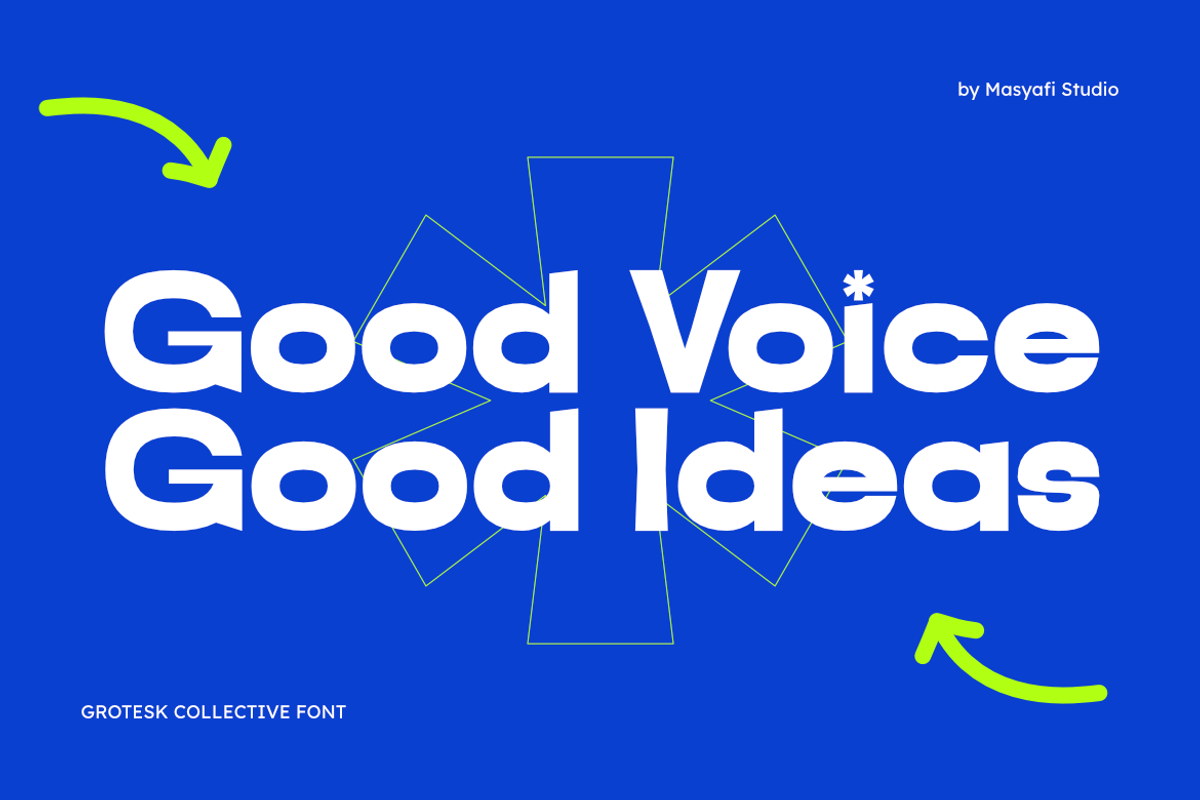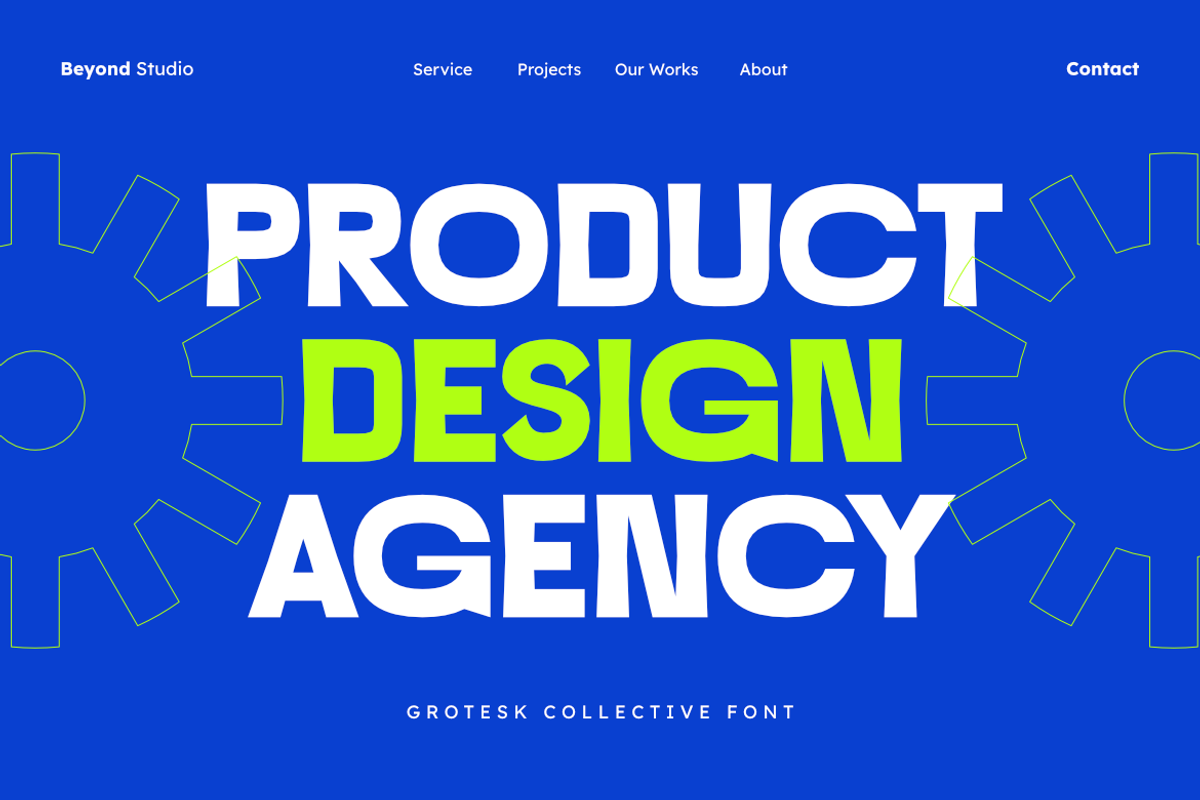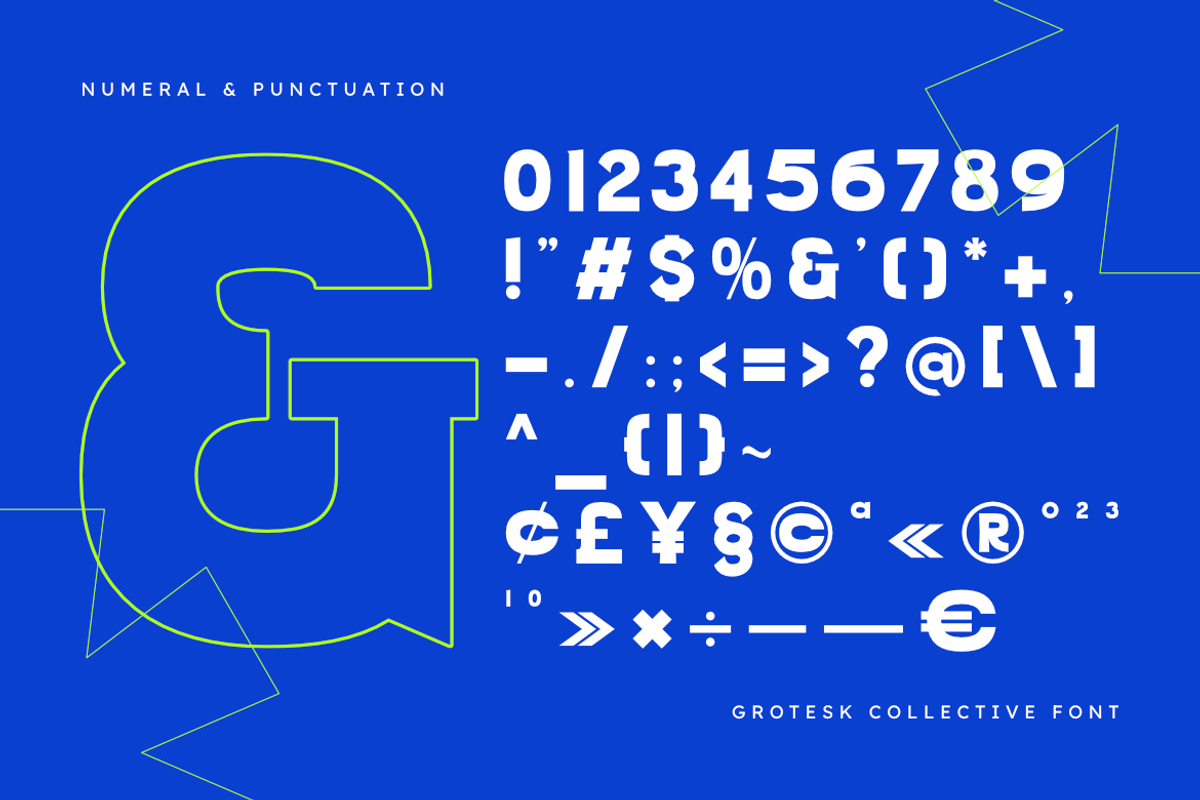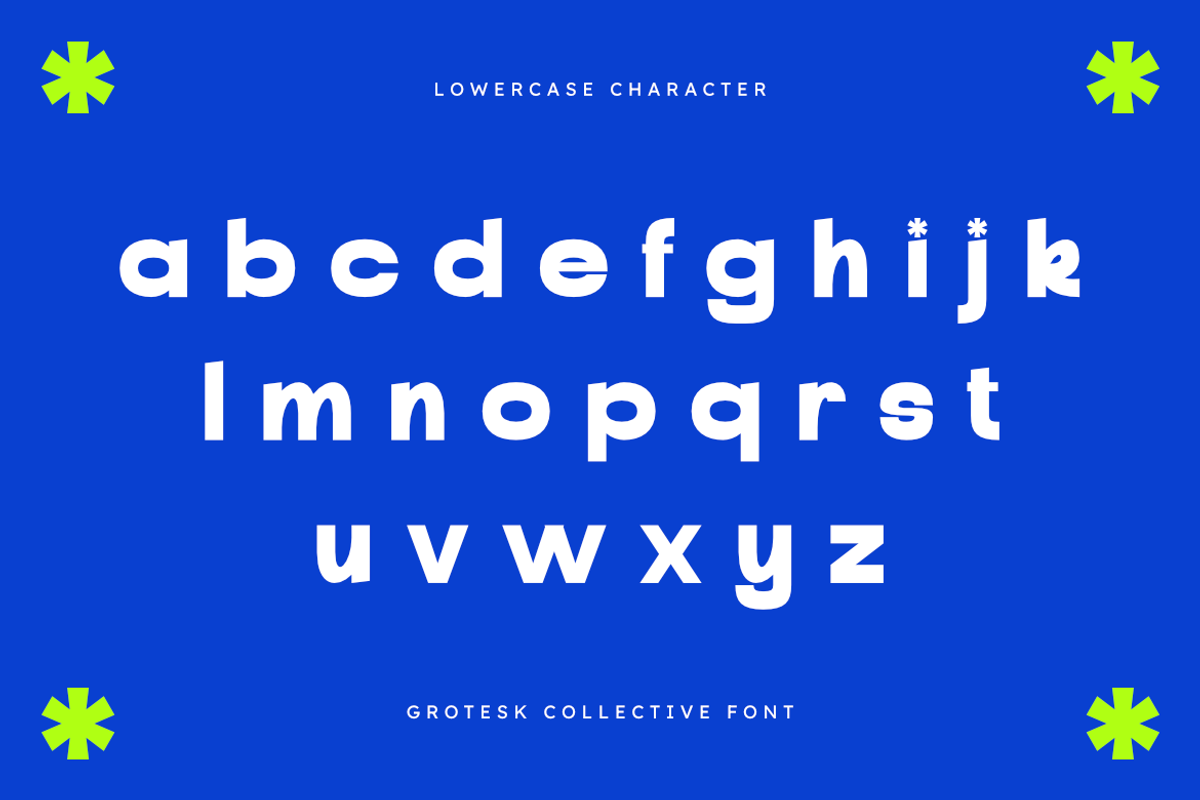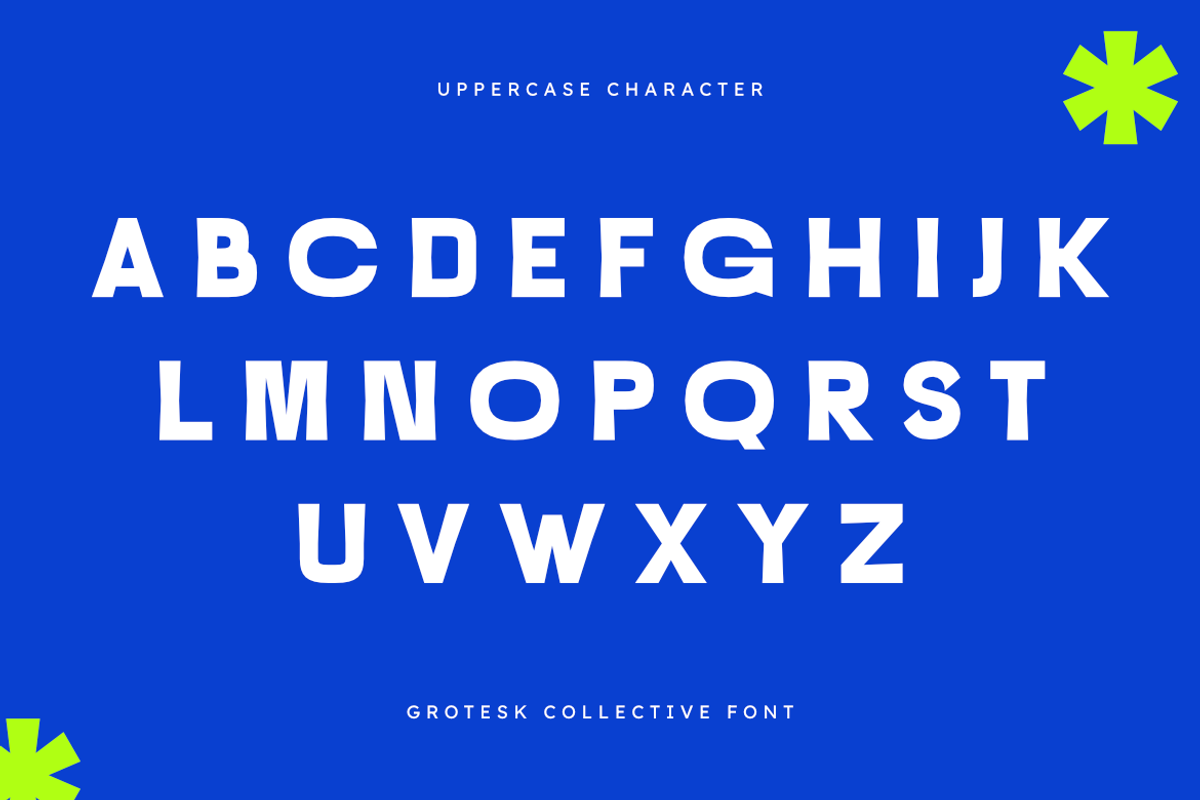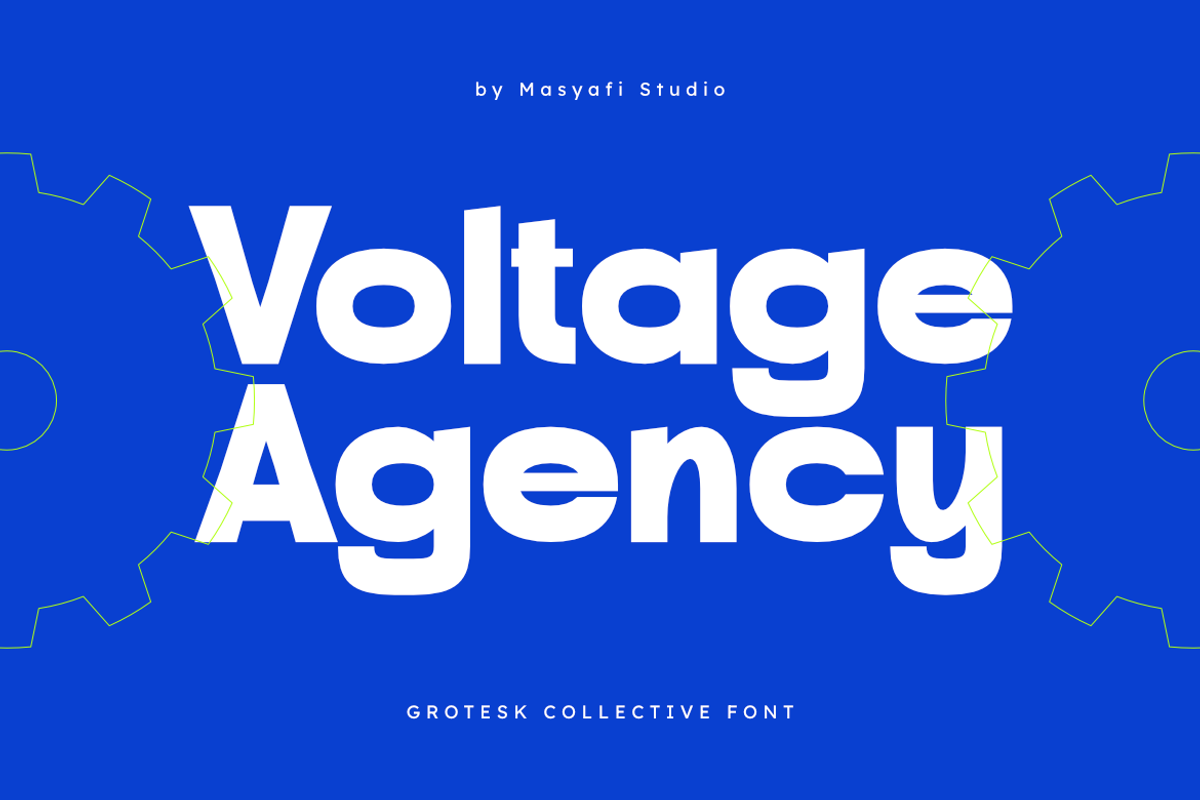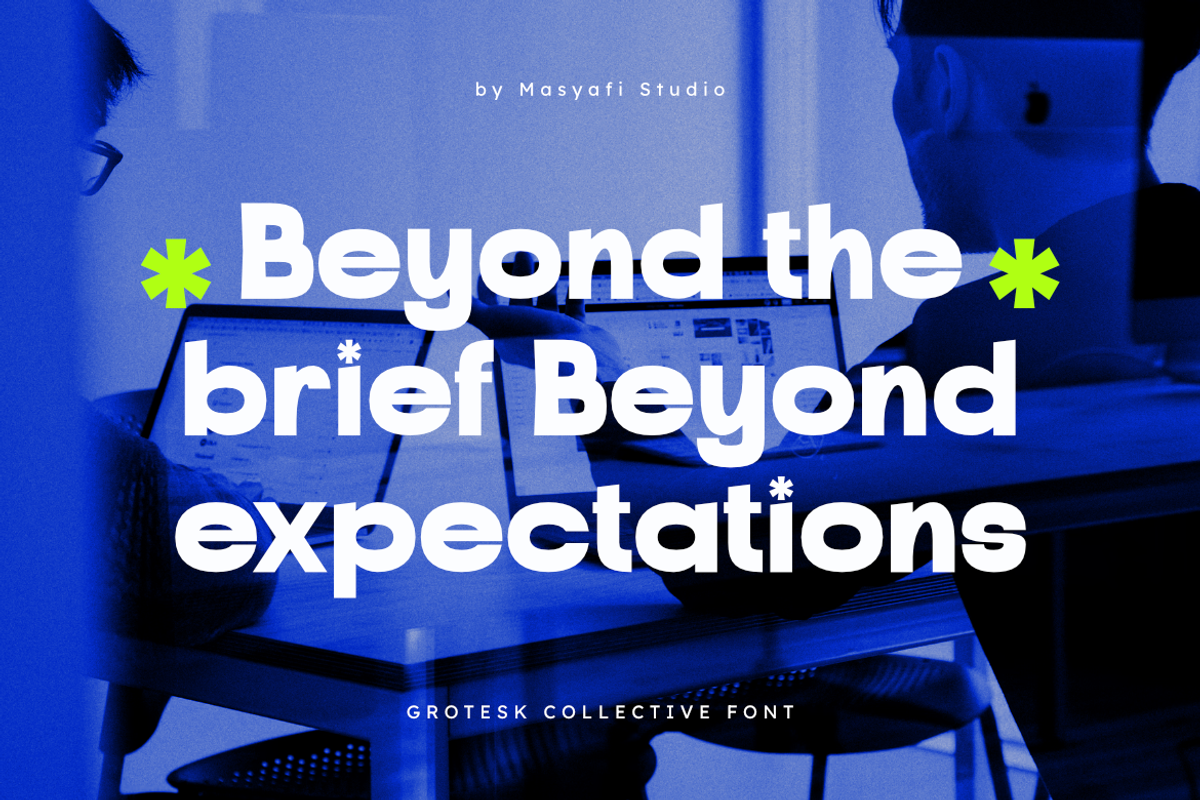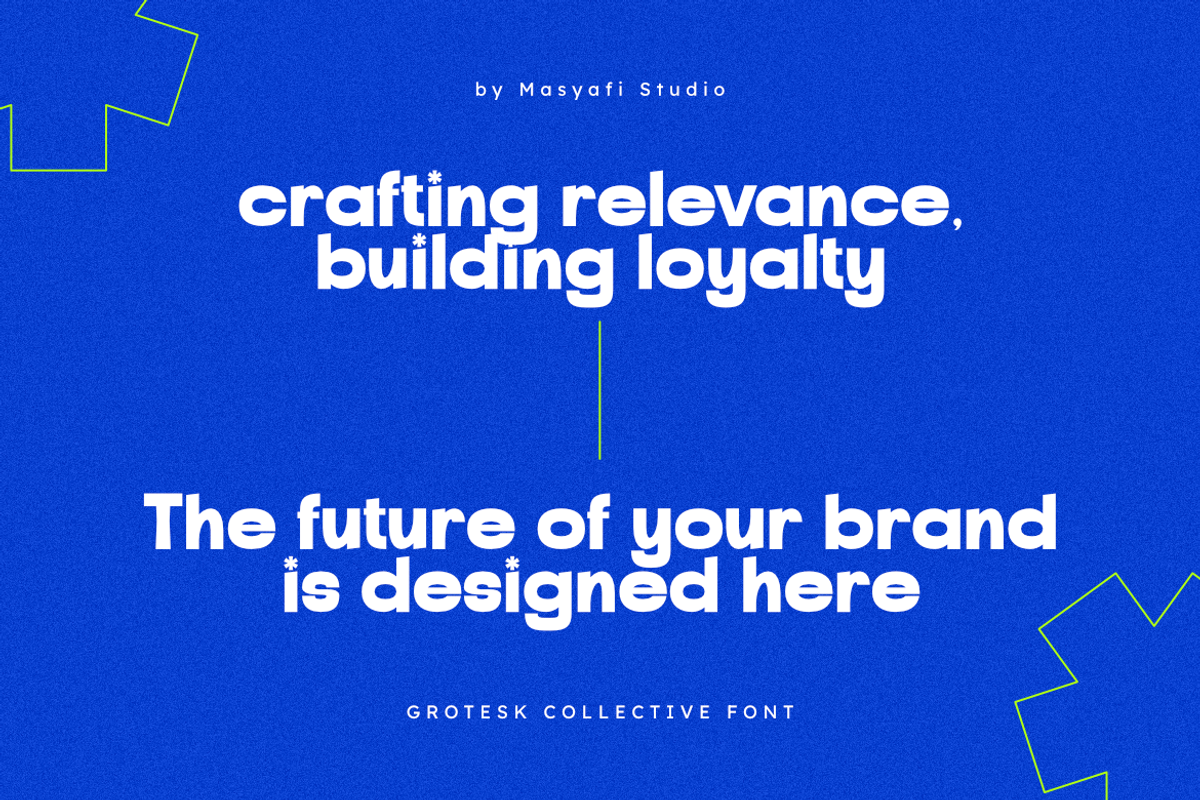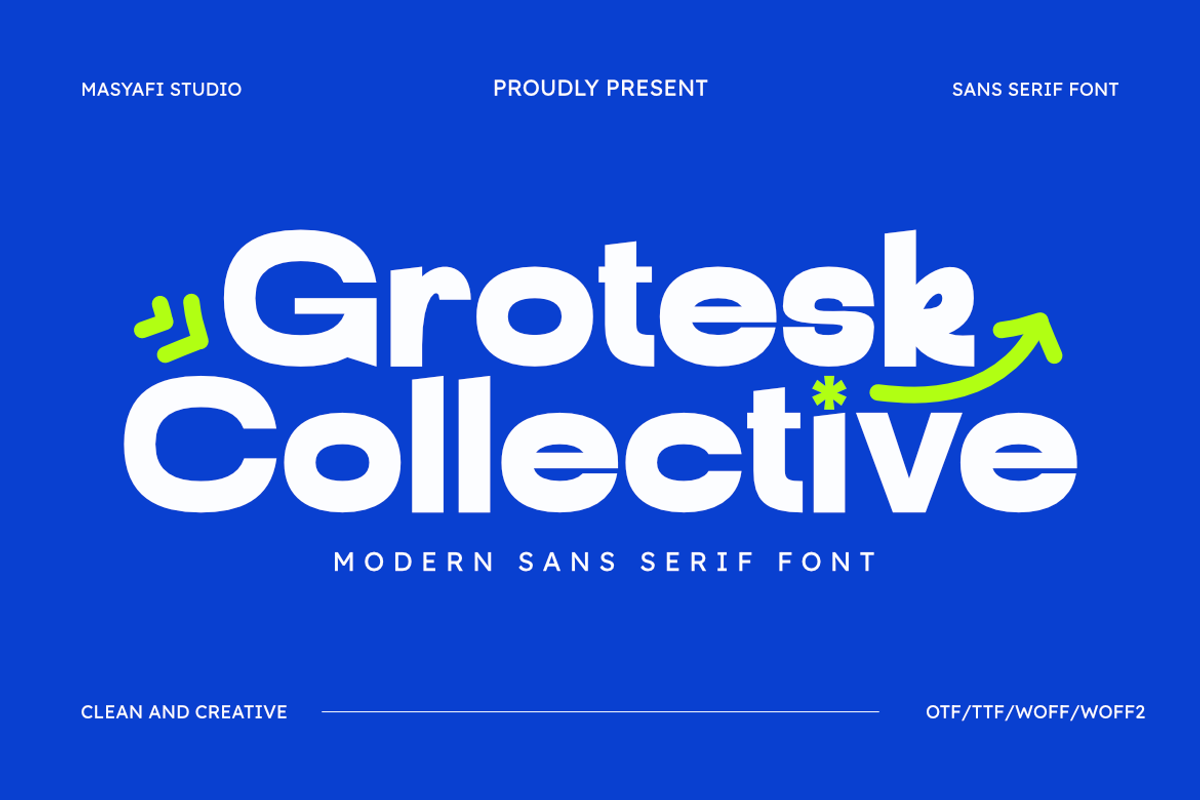
Grotesk Collective - Modern Sans Fon
Introducing Grotesk Collective — a clean and modern Sans Serif Font crafted for bold, optimistic, and contemporary branding. With its rounded terminals, confident shapes, and friendly personality, Grotesk Collective is perfect for brands that want to look professional yet approachable and fun.
The smooth curves and balanced proportions make this typeface highly readable at any size, whether used for headlines, logos, app interfaces, or social media graphics. Paired with vibrant colors or minimalist layouts, Grotesk Collective effortlessly elevates corporate, startup, and creative projects with a fresh, modern voice.
Build a strong visual identity with Grotesk Collective — a versatile sans serif that’s ready for digital products, marketing campaigns, and everyday design needs.
- Uppercase & Lowercase Letters
- Clean, Rounded Sans Serif Design
- Branding & Logo Design
- Startup and Tech Identity
- Corporate Presentations
- App & Web UI Design
- Social Media Posts & Banners
- Marketing Materials & Posters